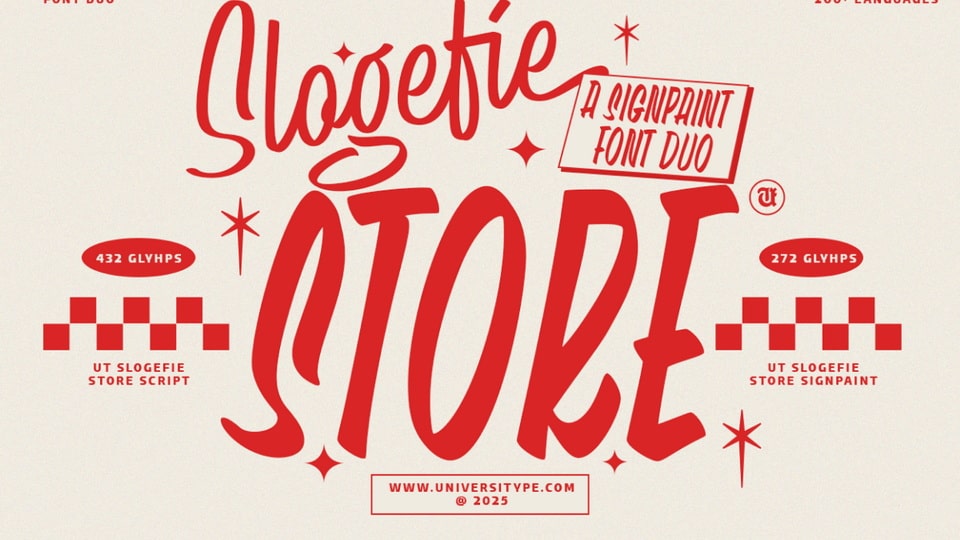
Download UT Slogefie Store font, a vibrant and versatile typeface that combines the charm of script with the boldness of sign paint, perfect for creating eye-catching designs that stand out.
Designer: Universitype Foundry